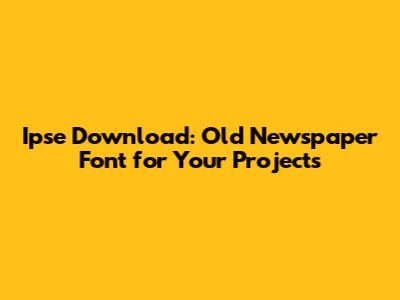
- Serifs: Many old newspaper fonts feature serifs, those little decorative strokes at the end of letterforms. Serifs were traditionally used to improve readability in printed text, especially on the somewhat rough paper used in early newspapers.
- Texture: Some fonts incorporate subtle textures or imperfections to replicate the look of ink bleeding into paper or the wear and tear of time.
- Condensed Letterforms: To fit more text into narrow columns, old newspapers often used condensed letterforms, making the text appear taller and narrower. This is a key characteristic that many vintage newspaper fonts emulate.
- Variations in Weight: Due to the printing processes of the past, there could be variations in the weight (thickness) of the font. Some modern fonts mimic this for added authenticity.
- Historical Documents & Recreations: Imagine creating a prop for a play or a historical society newsletter. An authentic-looking font is crucial.
- Themed Invitations & Posters: Planning a vintage-themed party? These fonts are a no-brainer for invitations, posters, and other decorations.
- Branding & Logos: A carefully chosen vintage font can give your brand a unique and memorable identity, especially if your business has a connection to history or tradition.
- Digital Designs: From websites to social media graphics, old newspaper fonts can add a touch of class and intrigue to your online presence.
- Readability: While authenticity is important, make sure the font is still readable, especially for body text. A font that's too distressed or stylized might look cool, but it won't be effective if people can't easily read it.
- Character Set: Does the font include all the characters you need, including punctuation, numbers, and special symbols? If you're working on a project with specific requirements, make sure the font has you covered.
- Licensing: Pay close attention to the font's licensing terms. Can you use it for commercial projects? Are there any restrictions on how you can use it? Make sure you understand the license before you start using the font.
- Style & Tone: Does the font match the overall style and tone of your project? A font that looks great in one context might not work well in another. Consider the historical period you're trying to evoke and choose a font that reflects that era.